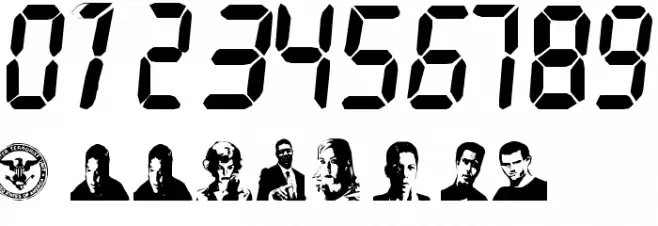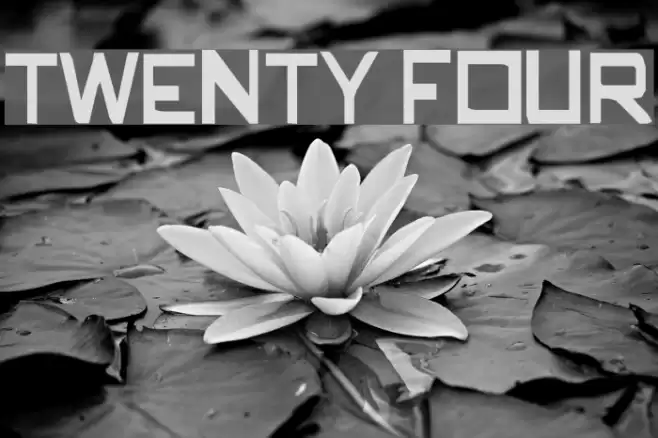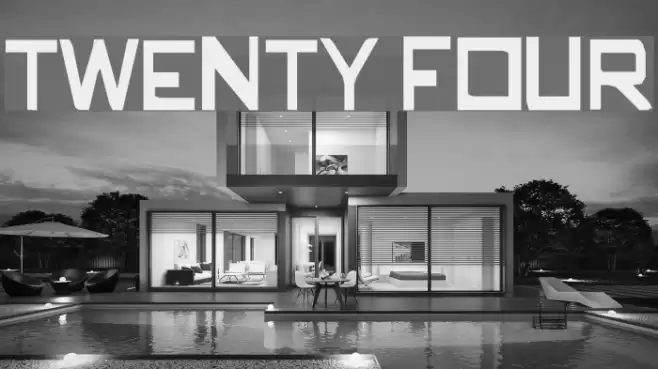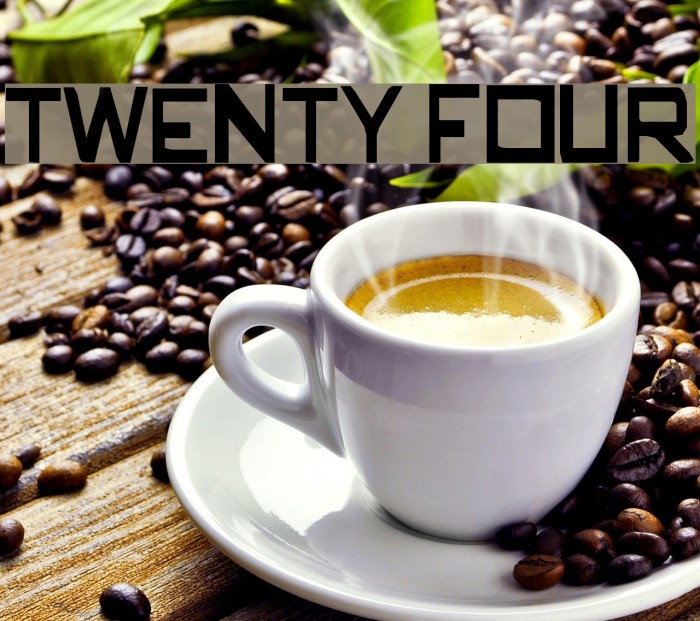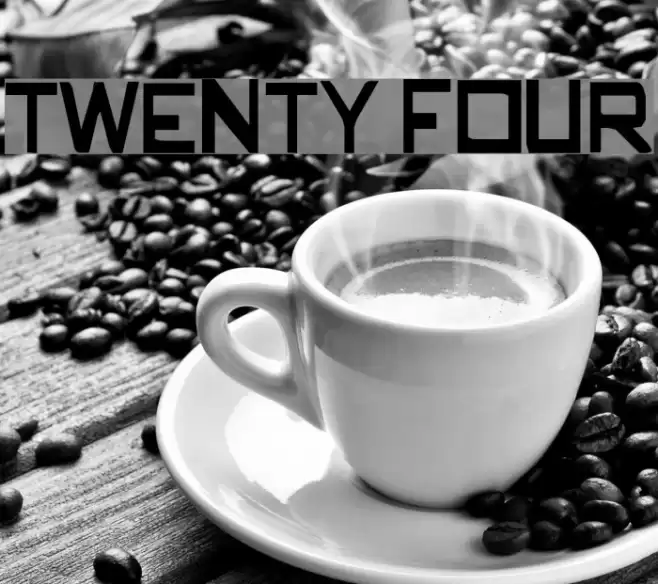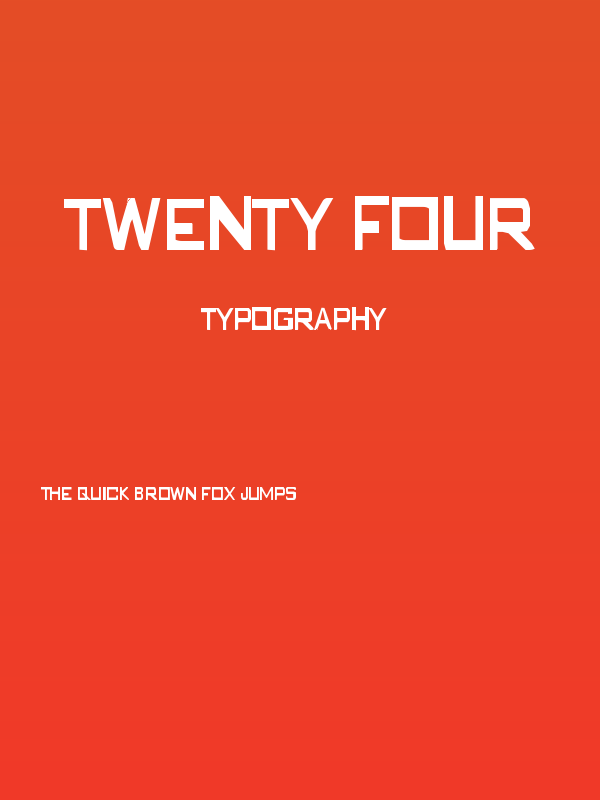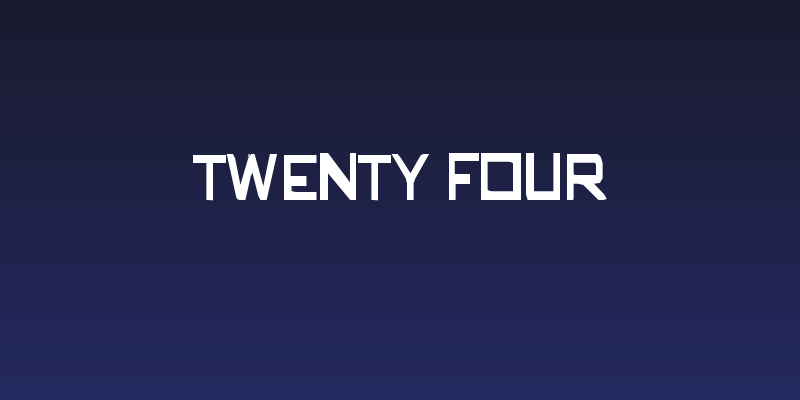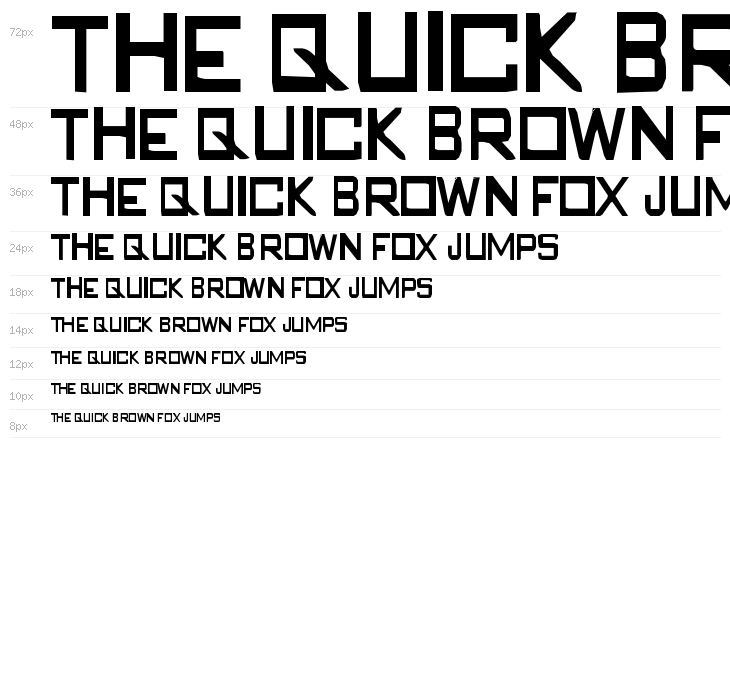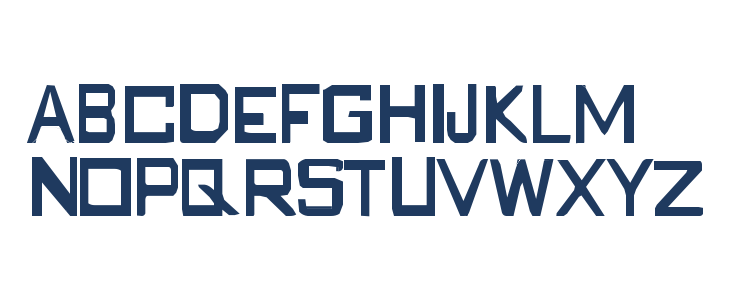
twenty four Font
twenty four Description
This font is a digital-inspired typeface that mimics the appearance of LED or LCD displays. It features angular, geometric shapes with a distinct, segmented style reminiscent of digital clocks or calculators. The characters are bold and uniform, providing a futuristic and technological feel. The uppercase letters are consistent in height, while the numbers are designed to resemble digital readouts. This font is ideal for projects that require a modern, tech-savvy aesthetic, such as digital interfaces, tech branding, or futuristic designs.